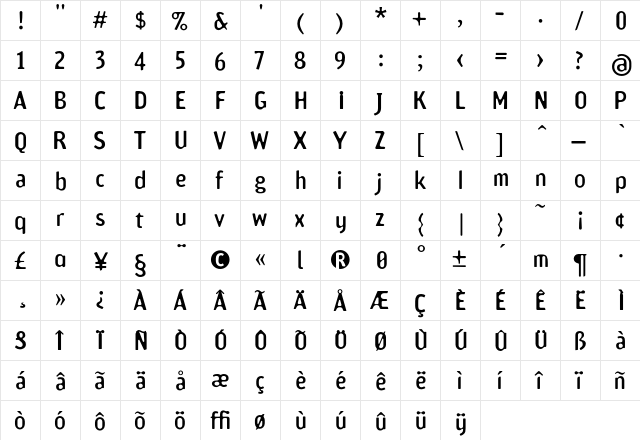
Amoebia Sans
| Style | Sans |
Design Context for Amoebia Typeface
Amoebia offers clean, dependable letterforms without strong stylistic allegiance, making it a practical choice for designers who need flexibility.